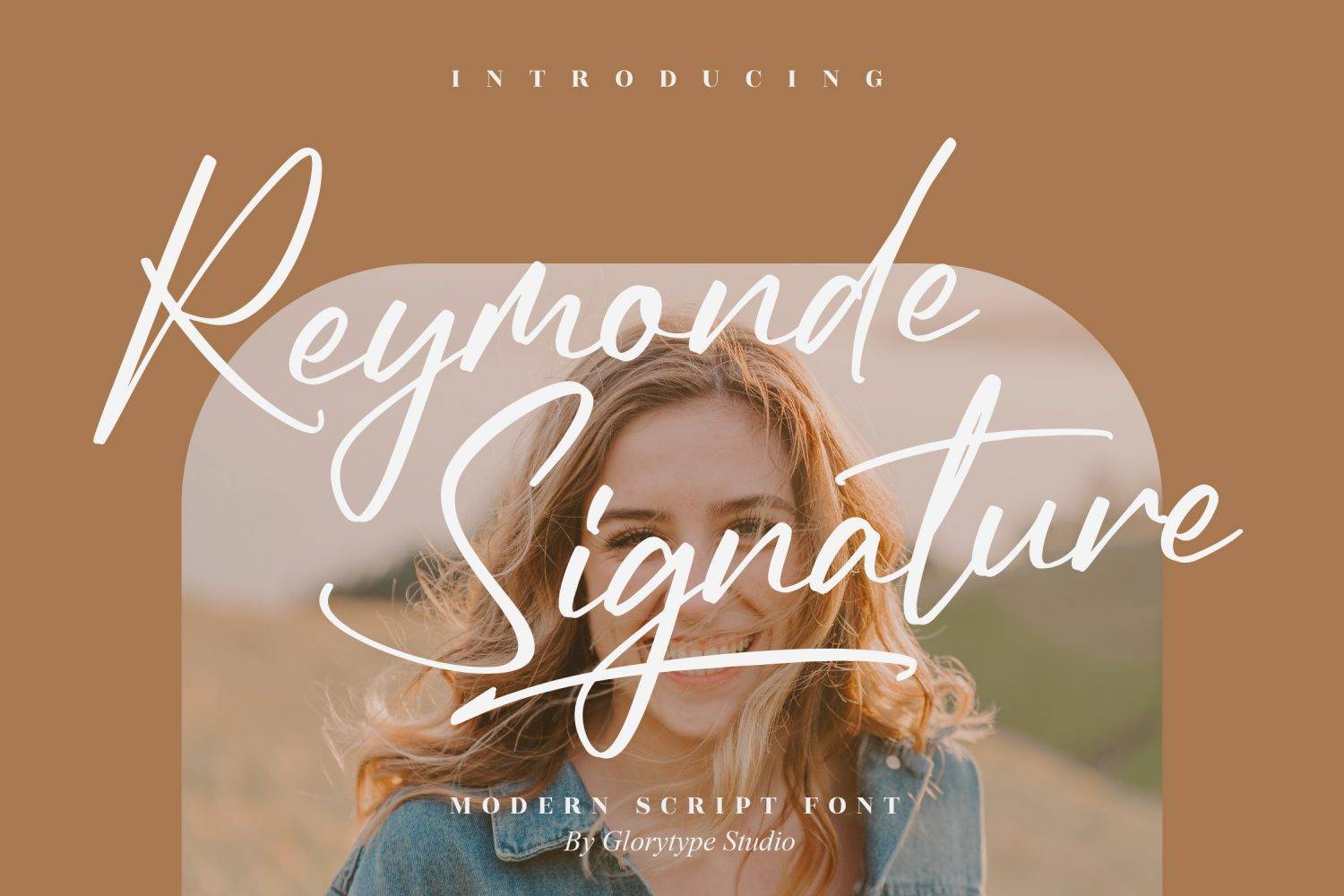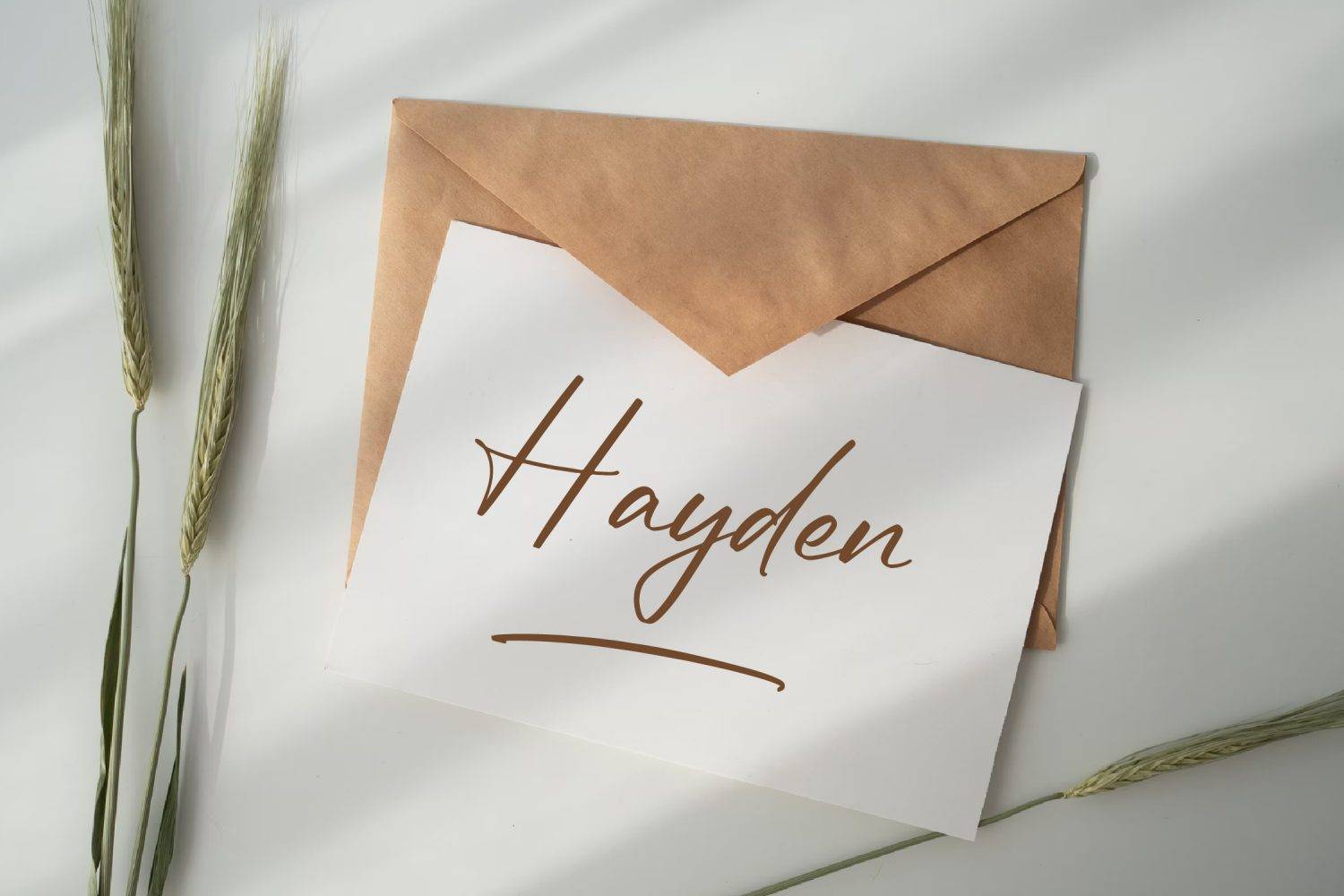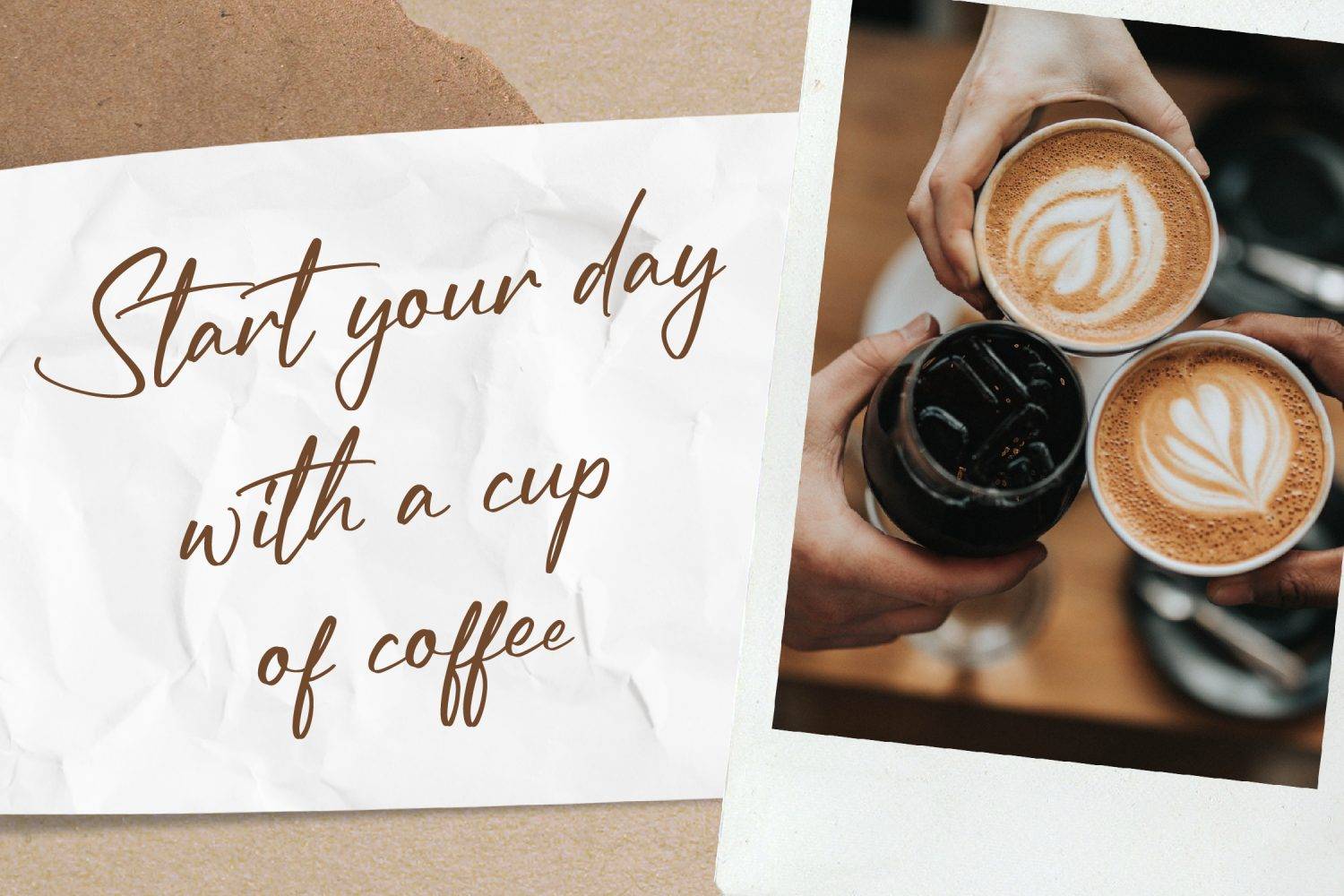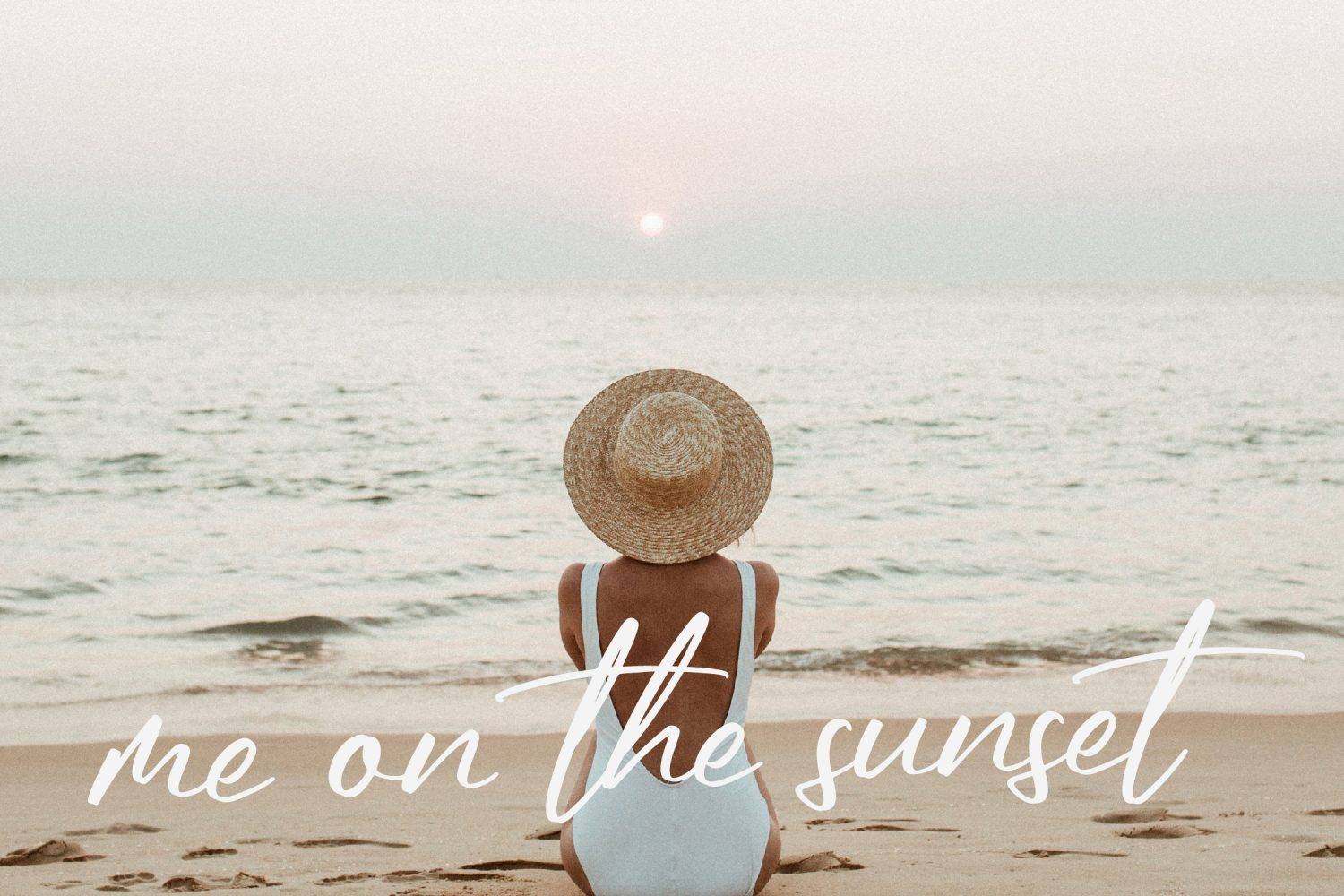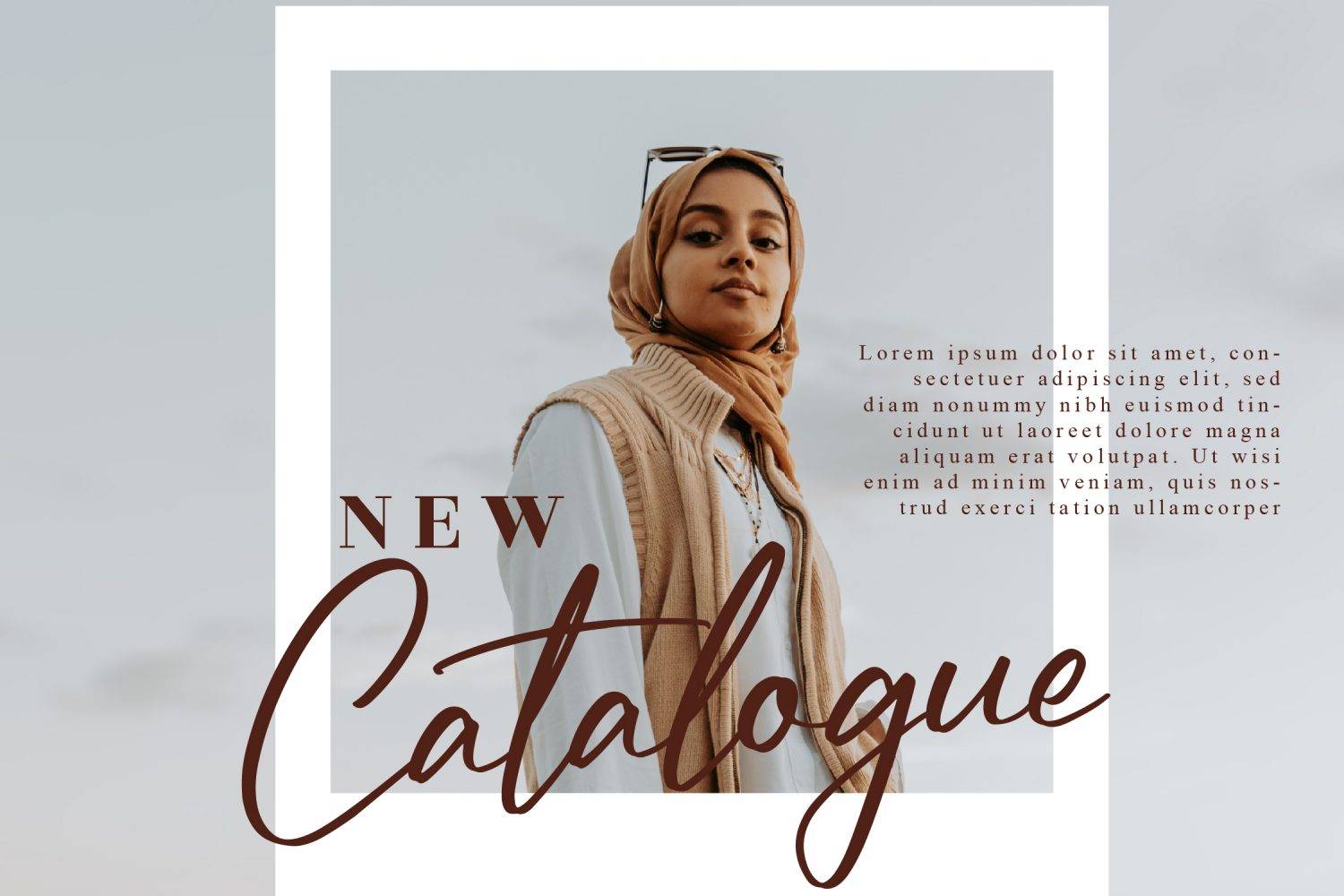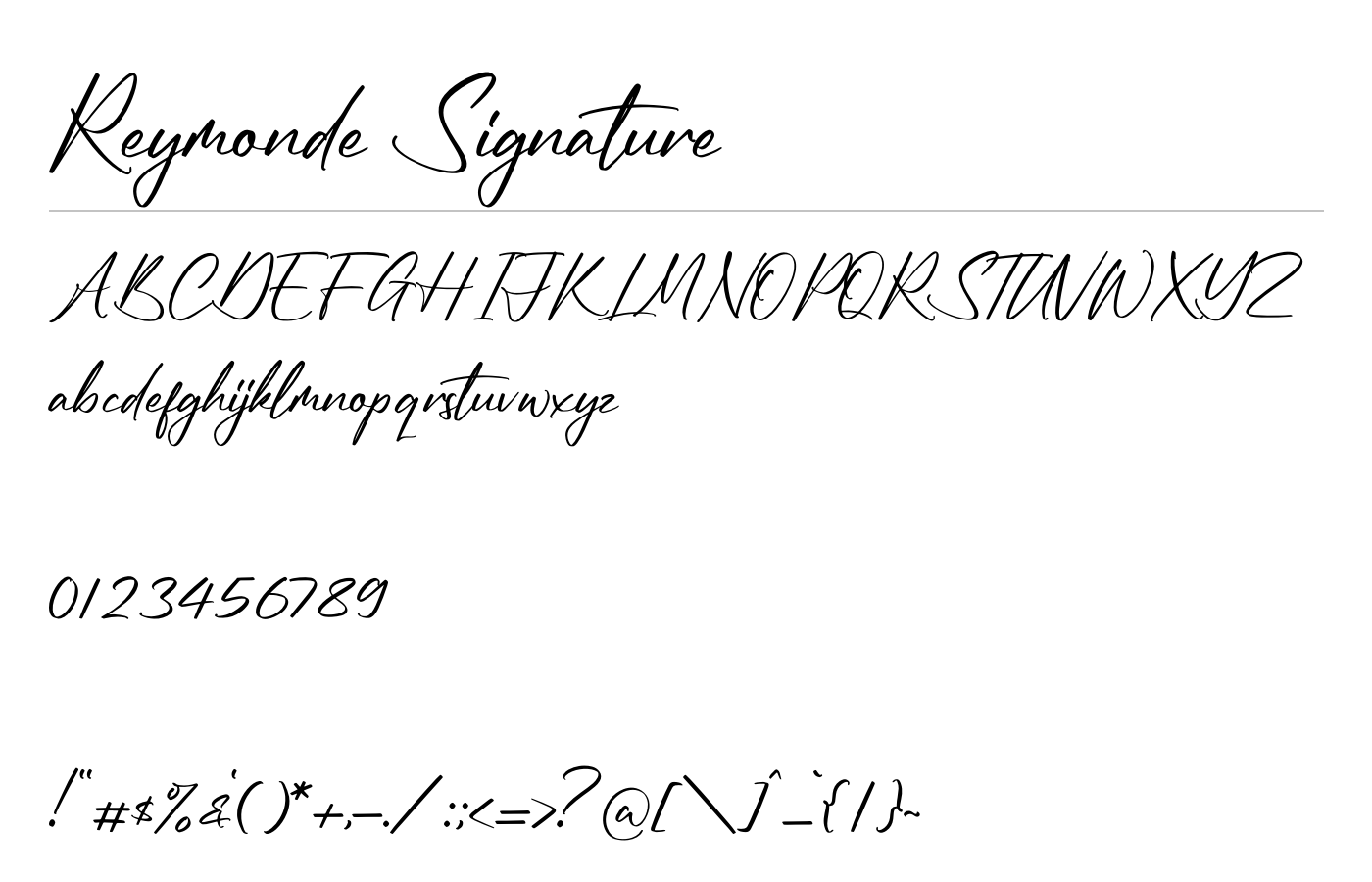
Reymonde Signature is a sleek, elegant script font that mimics natural handwriting with its fluid, slender strokes and slightly irregular letterforms. Its thin weight and airy design give it a sophisticated and personal feel, making it ideal for branding, invitations, and stylish editorial projects where a refined yet casual touch is desired. This font works especially well for luxury or creative industries seeking a modern signature-style look.
Reymonde Signature Font
About Reymonde Signature Font